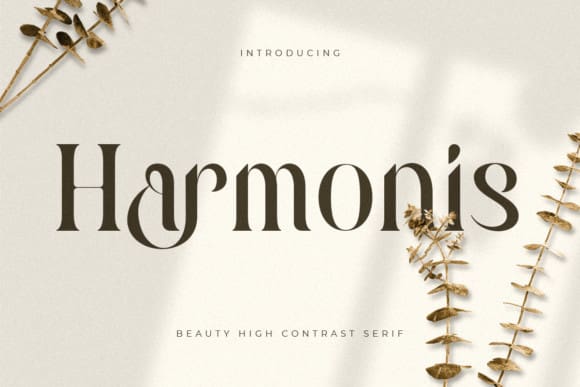
Harmonis Font
Harmonis Font is a stylish and incredibly elegant serif font. It looks stunning on wedding invitations, thank you cards, quotes, greeting cards, logos, business cards, and every other design that needs a handwritten touch.